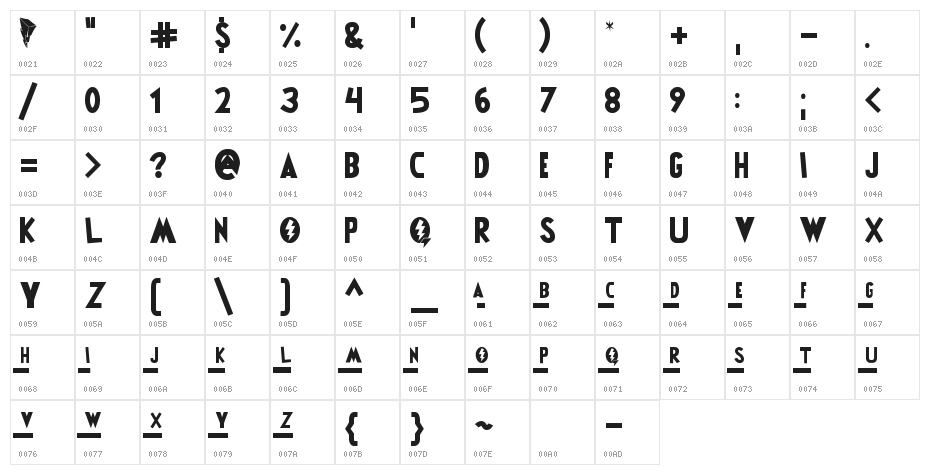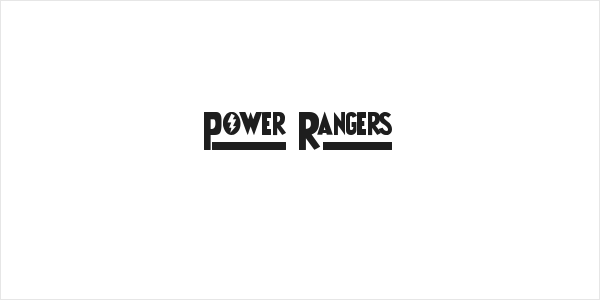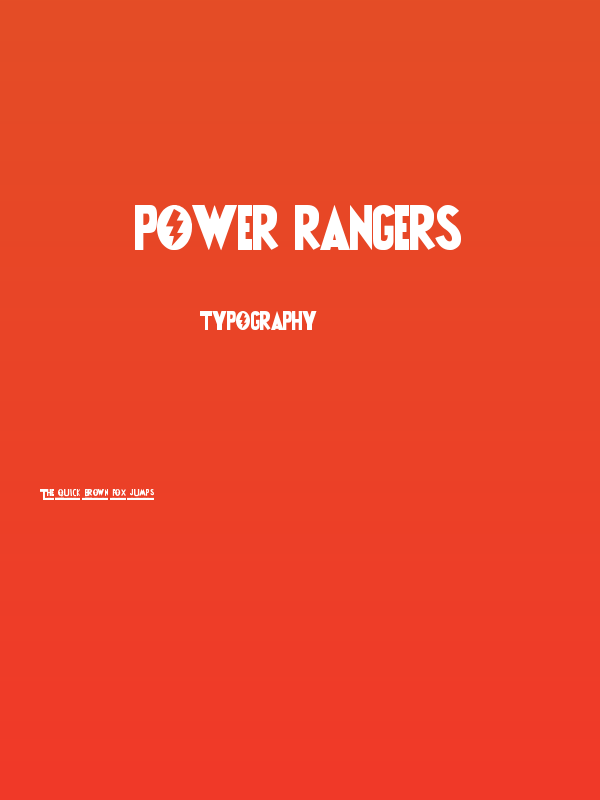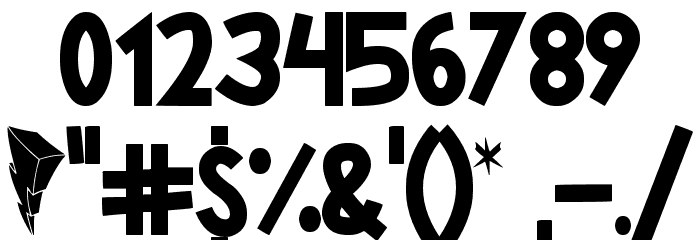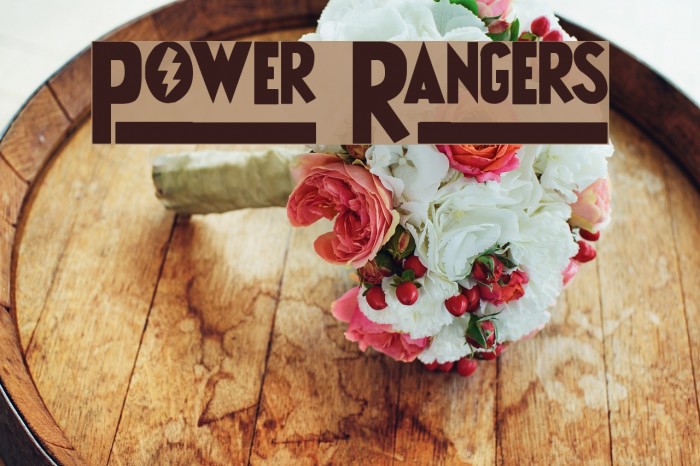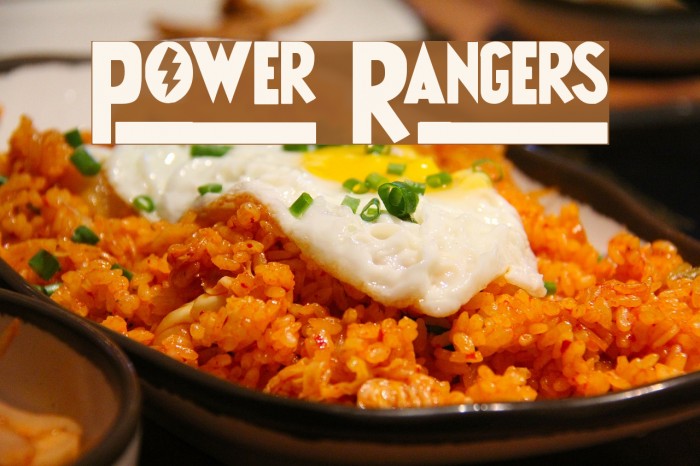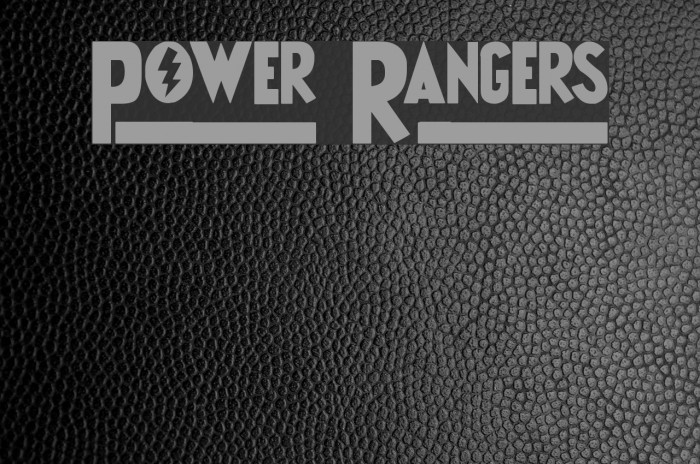
Power Rangers Font
Power Rangers Description
This font features a bold and dynamic style, characterized by sharp angles and a strong presence. The uppercase letters are particularly striking, with a unique lightning bolt motif integrated into the letter 'O'. The font conveys a sense of energy and movement, making it ideal for attention-grabbing designs. The numbers and special characters maintain the bold aesthetic, ensuring consistency across all elements. The font's distinctive style is reminiscent of action and adventure themes, making it suitable for projects that require a powerful visual impact.
| Proposed Projects | Ideal for action-themed posters, logos, video game titles, and merchandise branding. |